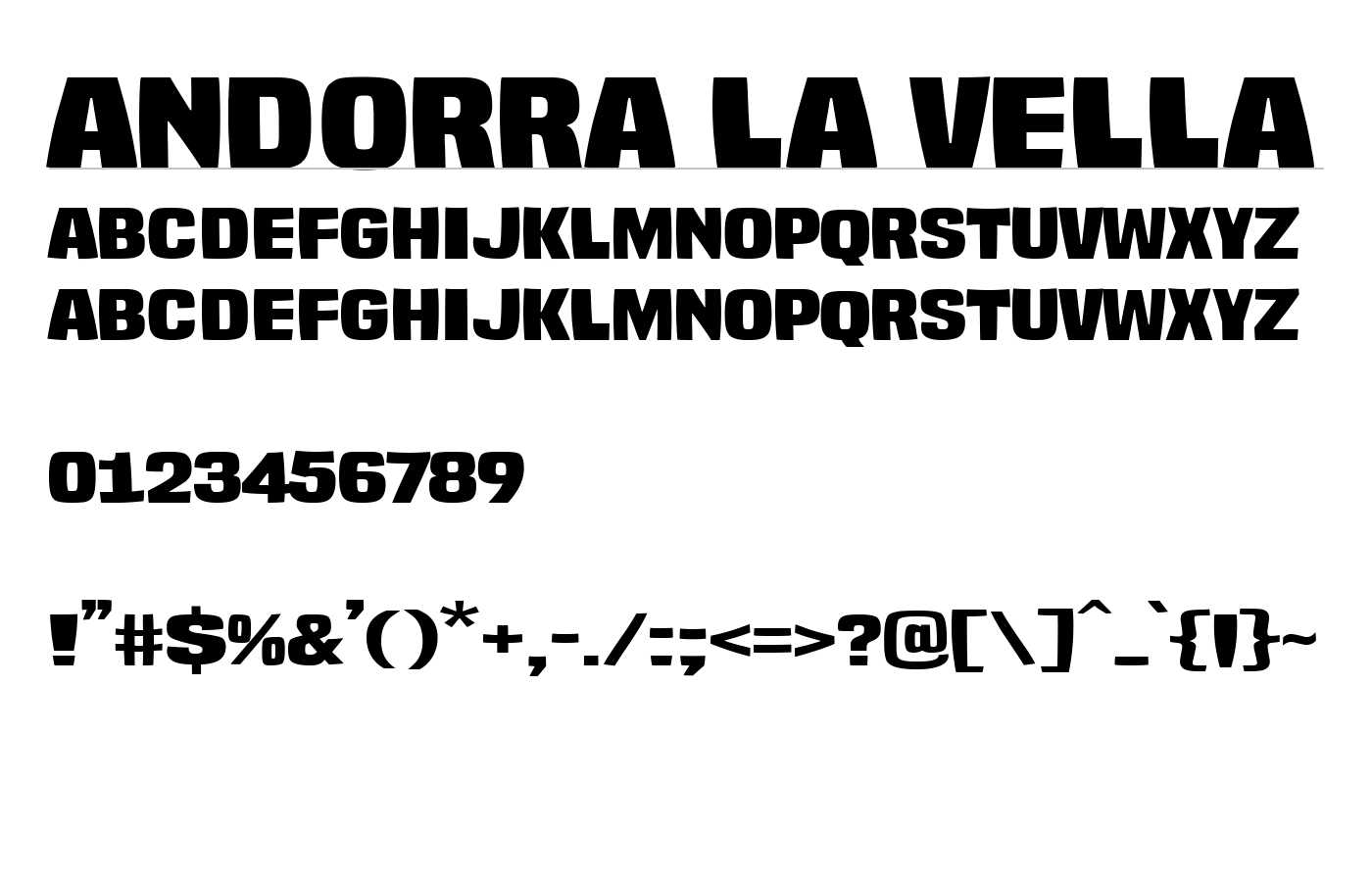
Andorra la Vella is a bold, condensed sans-serif font with a strong, playful personality. Its thick strokes and slightly irregular shapes give it an energetic, informal vibe, making it ideal for eye-catching headlines, posters, and branding that seeks a modern yet approachable feel. This font works well where attention and impact are needed, especially in creative and lively contexts.
Andorra la Vella Font